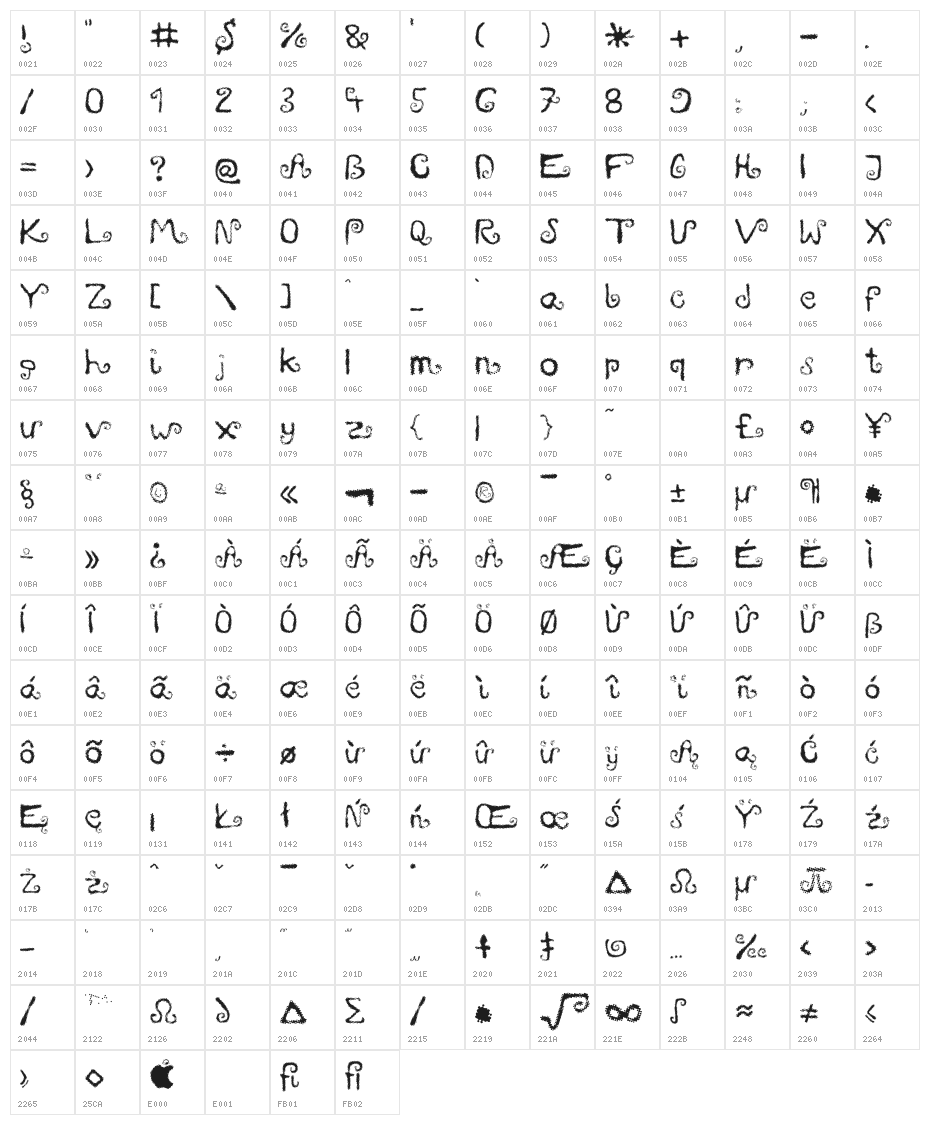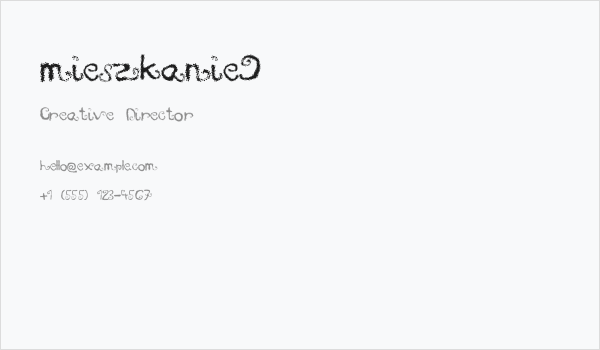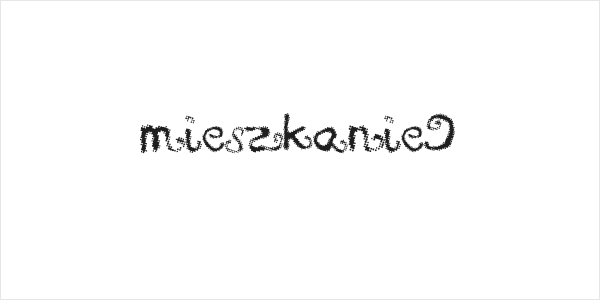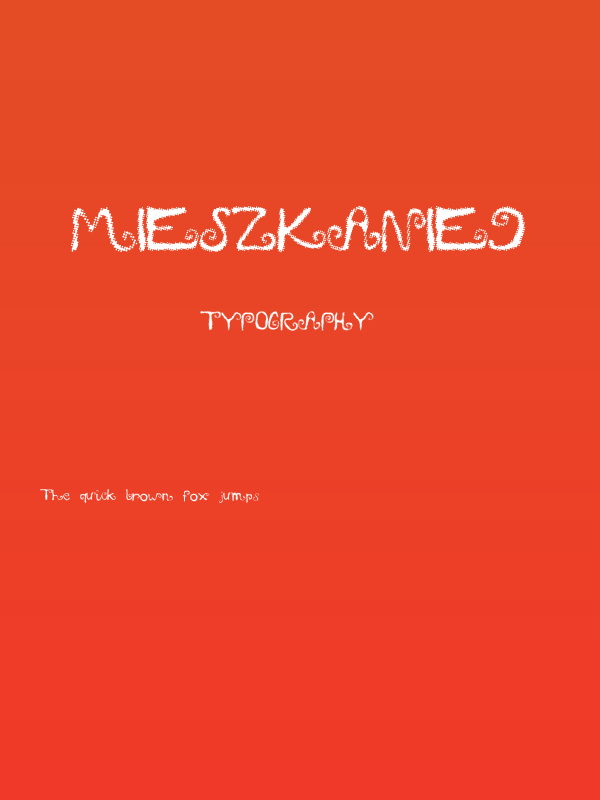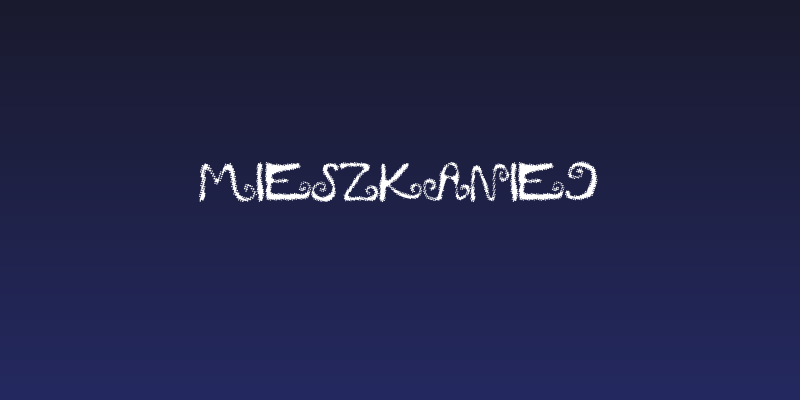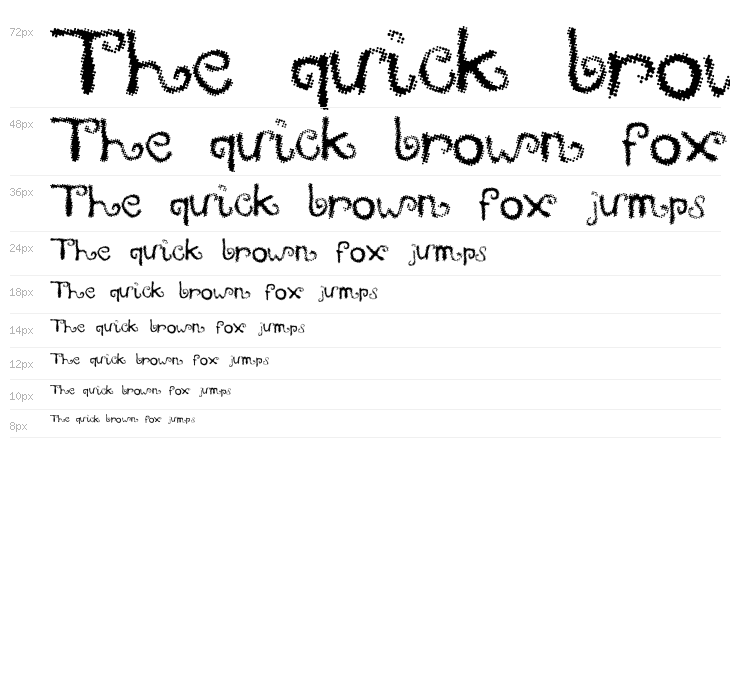
mieszkanie9 Font
mieszkanie9 Description
This font features a playful and whimsical design, characterized by its unique dotted texture and curly embellishments on each character. The letters are crafted with a sense of movement and fluidity, giving them a lively and dynamic appearance. Uppercase and lowercase letters maintain a consistent style, with swirls and loops adding a decorative touch. The numbers and special characters follow the same playful theme, making the font suitable for creative and artistic projects. Its distinctive style makes it stand out, perfect for capturing attention in various design contexts.
| Overall Style | Whimsical |
| Proposed Projects | Ideal for children's books, playful branding, party invitations, and artistic posters. |